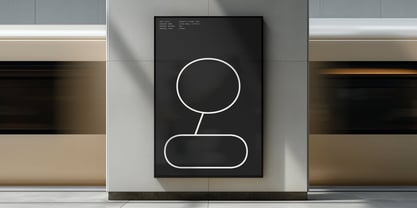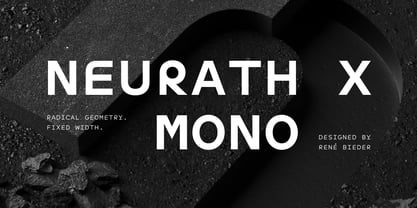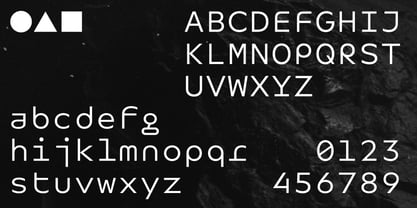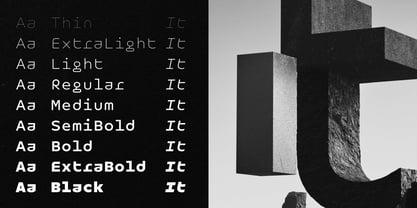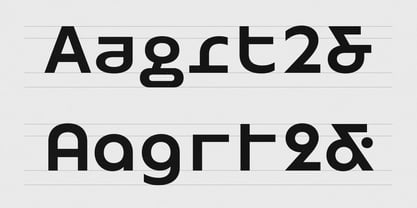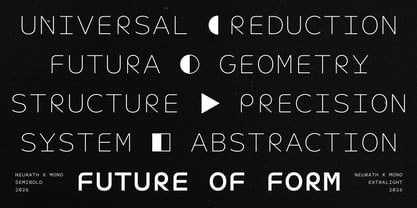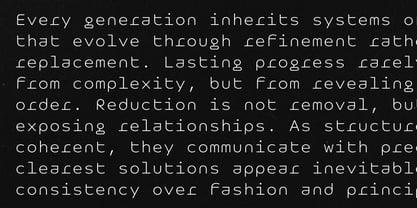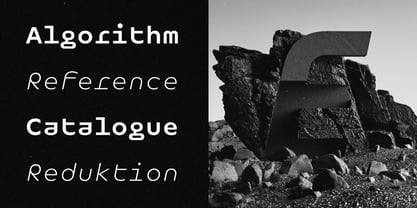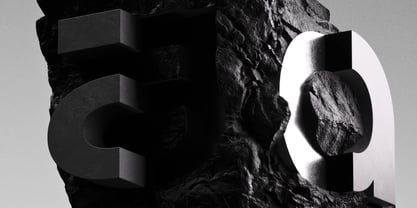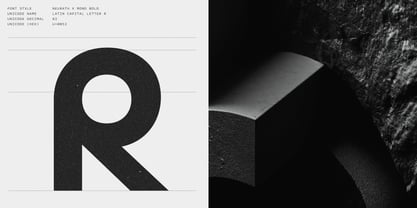
Neurath X Mono
par René Bieder
Neurath X Mono is an expressive geometric monospaced typeface that explores how far geometric reduction can be taken within the constraints of a fixed-width system. Developed alongside Neurath X, the collection’s proportional counterpart, it builds upon the same reinterpretation of Paul Renner’s Futura while drawing inspiration from experimental geometric projects such as Herbert Bayer’s Universal alphabet and Herb Lubalin’s ITC Ronda.
Rather than adapting an existing proportional design, Neurath X Mono was developed as a dedicated monospaced system. Conventional forms have been simplified, reconstructed, and optically refined to create a more distinctive voice while preserving the rhythm, alignment, and functionality expected from monospaced typography.
The family includes 18 styles from Thin to Black and a comprehensive set of OpenType features. A large collection of stylistic alternates allows designers to fine-tune the typeface’s character, ranging from restrained geometric forms to more radical interpretations inspired by early modernist experiments.
Designed for both creative coding environments and contemporary graphic design, Neurath X Mono combines expressive geometry with practical usability. Careful spacing, optical refinements, and extensive language support ensure consistent performance across interfaces, branding, editorial design, terminal applications, and display typography. For projects that require proportional typography, Neurath X Mono is complemented by Neurath X, its proportional companion, developed according to the same design principles.
René Bieder is a German type designer and the founder of Studio René Bieder, an independent type foundry established in 2013. With a background in graphic design and art direction, he spent several years working for both boutique and international agencies before focusing exclusively on type design. The studio’s retail library ranges from contemporary sans and serif families to monospaced and display typefaces, many of which have become widely used by designers, brands, and institutions around the world. Alongside the retail collection, Studio René Bieder develops custom typefaces for international clients across branding, editorial, corporate, and digital applications. The studio’s work has received multiple awards. Today, Studio René Bieder’s typefaces are used globally by companies, cultural institutions, and designers across a broad range of industries.